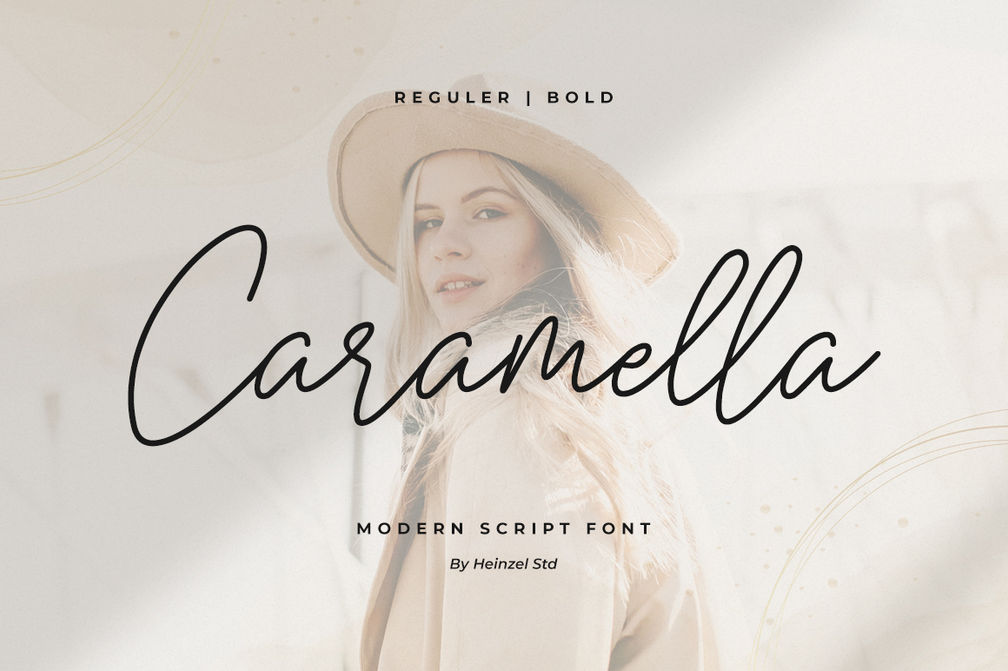
Caramella Handwritten Font
Caramella Modern Script Font
Caramella simplifies elegance into one truly stunning modern script font. With its relaxed feel, Caramella is incredibly versatile, suitable to each of the design projects you may have in mind! Use it to create beautiful greeting cards, branding, wedding invitations, thank you cards, quotes, logos, business cards, magazine, marketing materials, website titles and every other design which needs a handwritten touch.